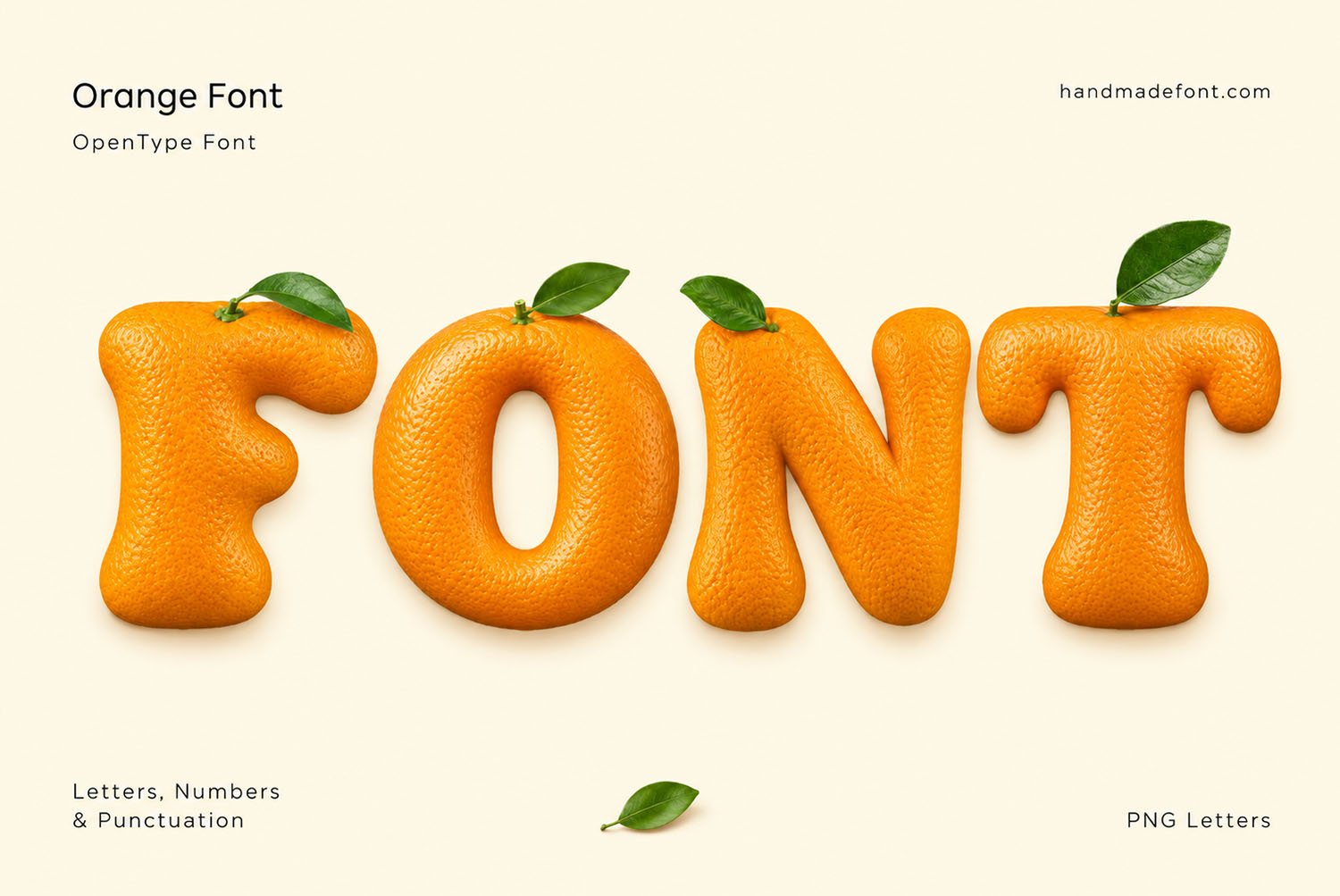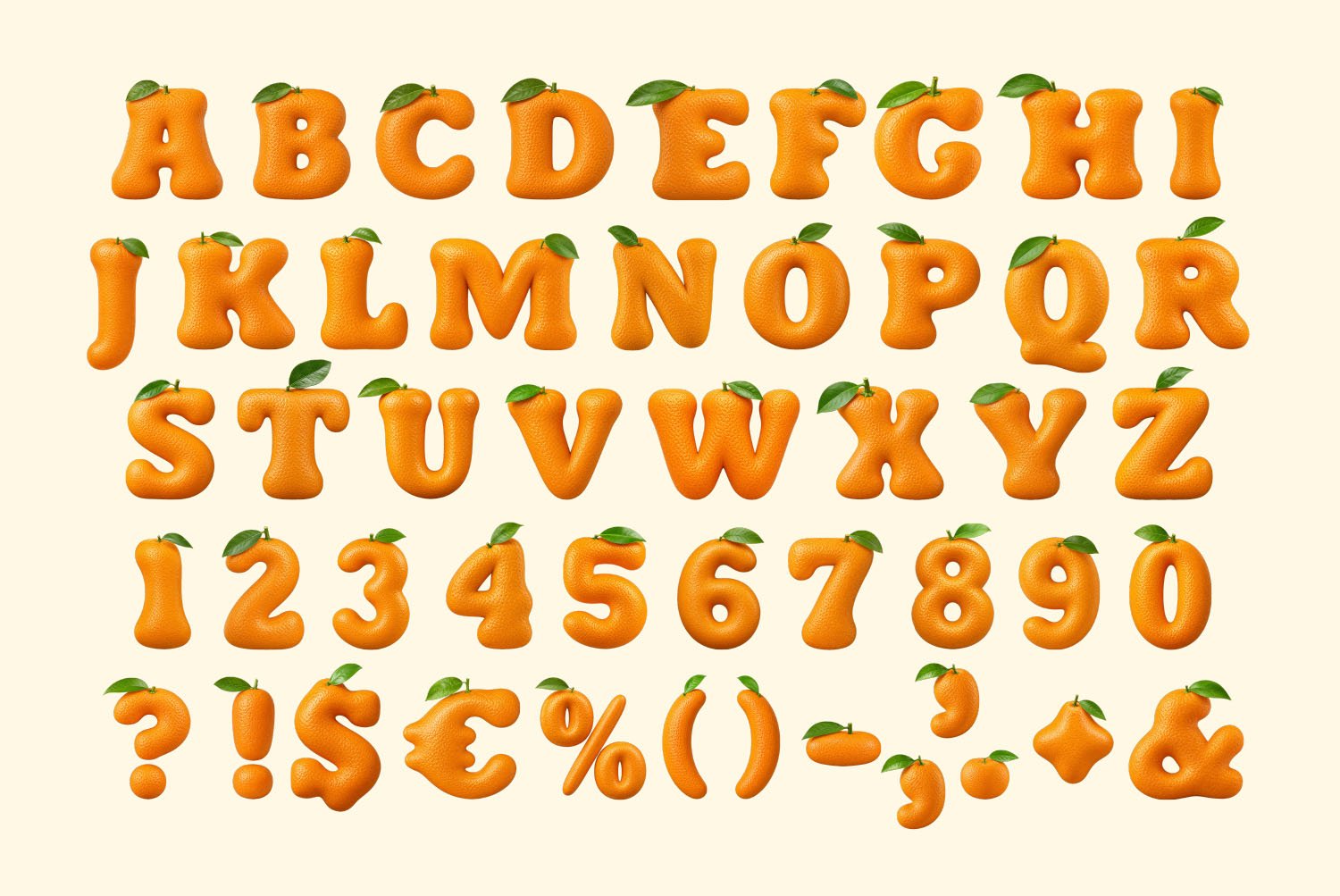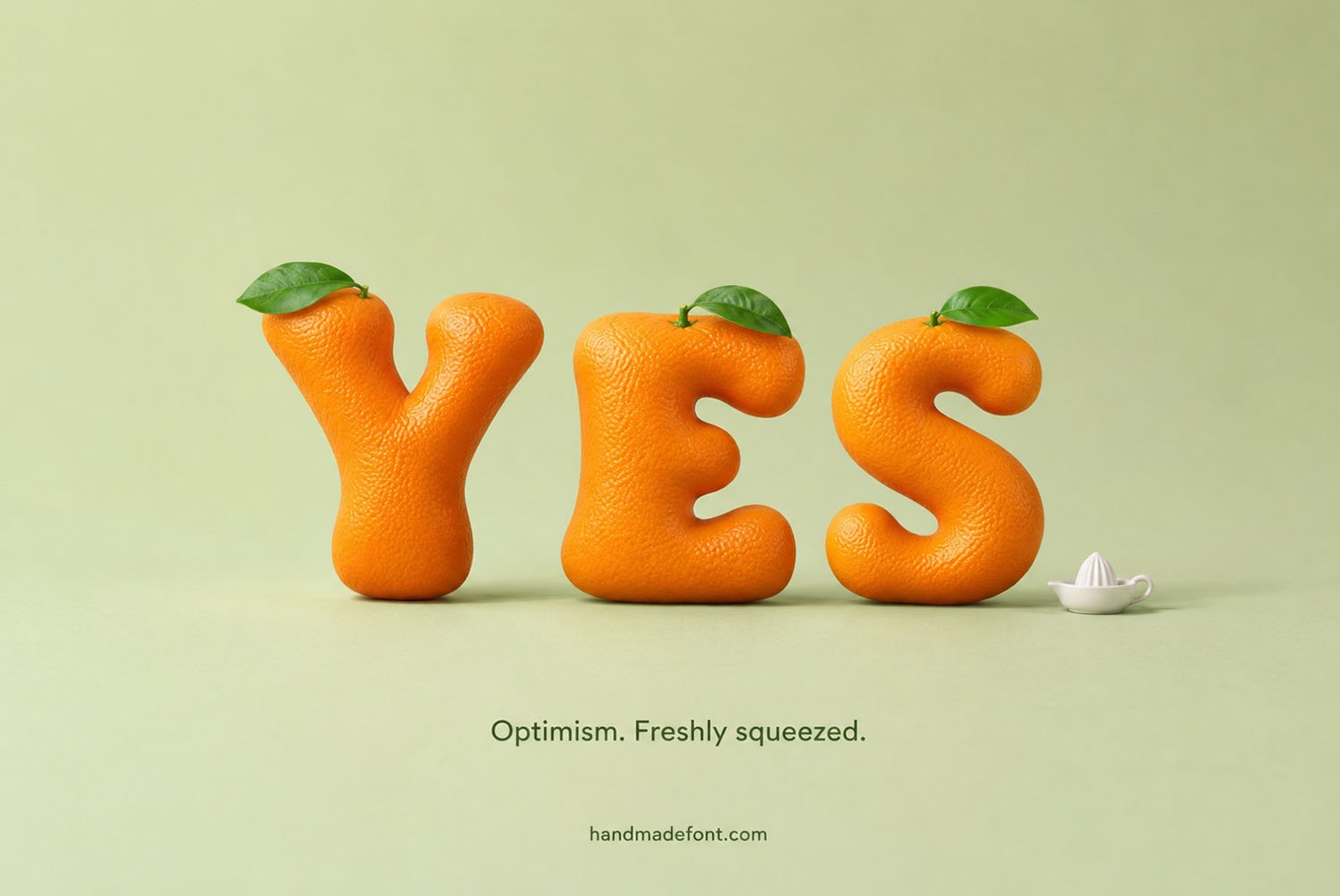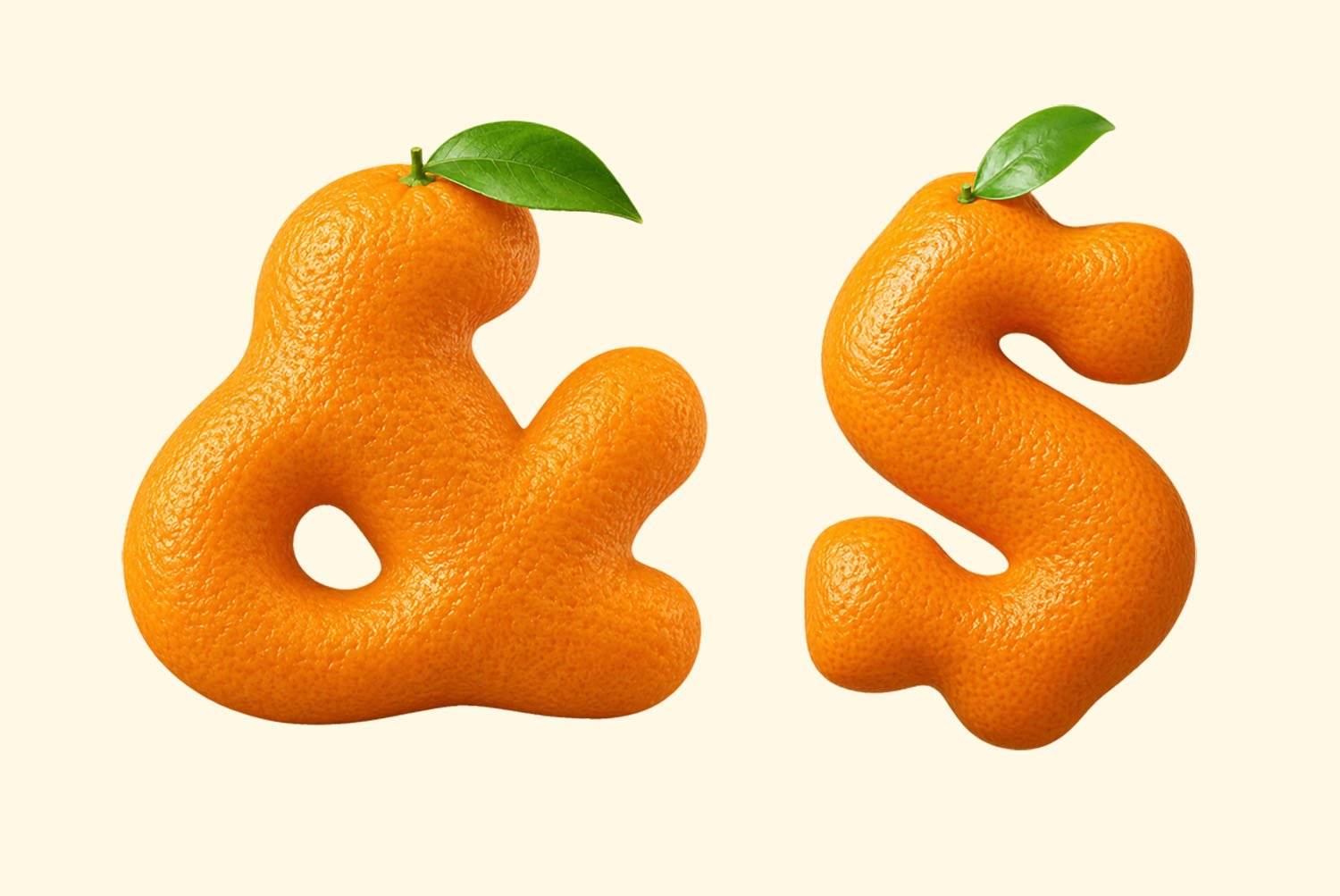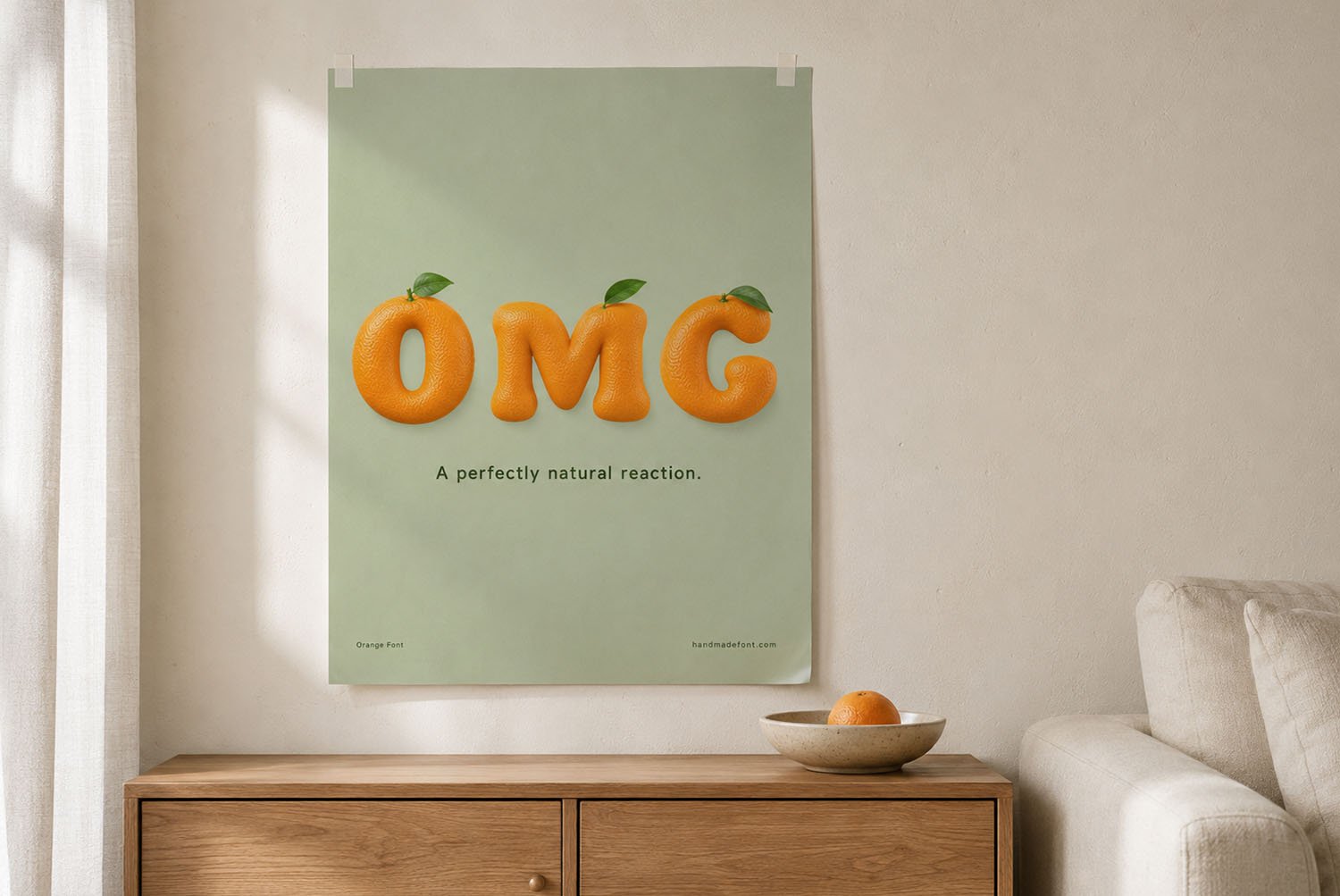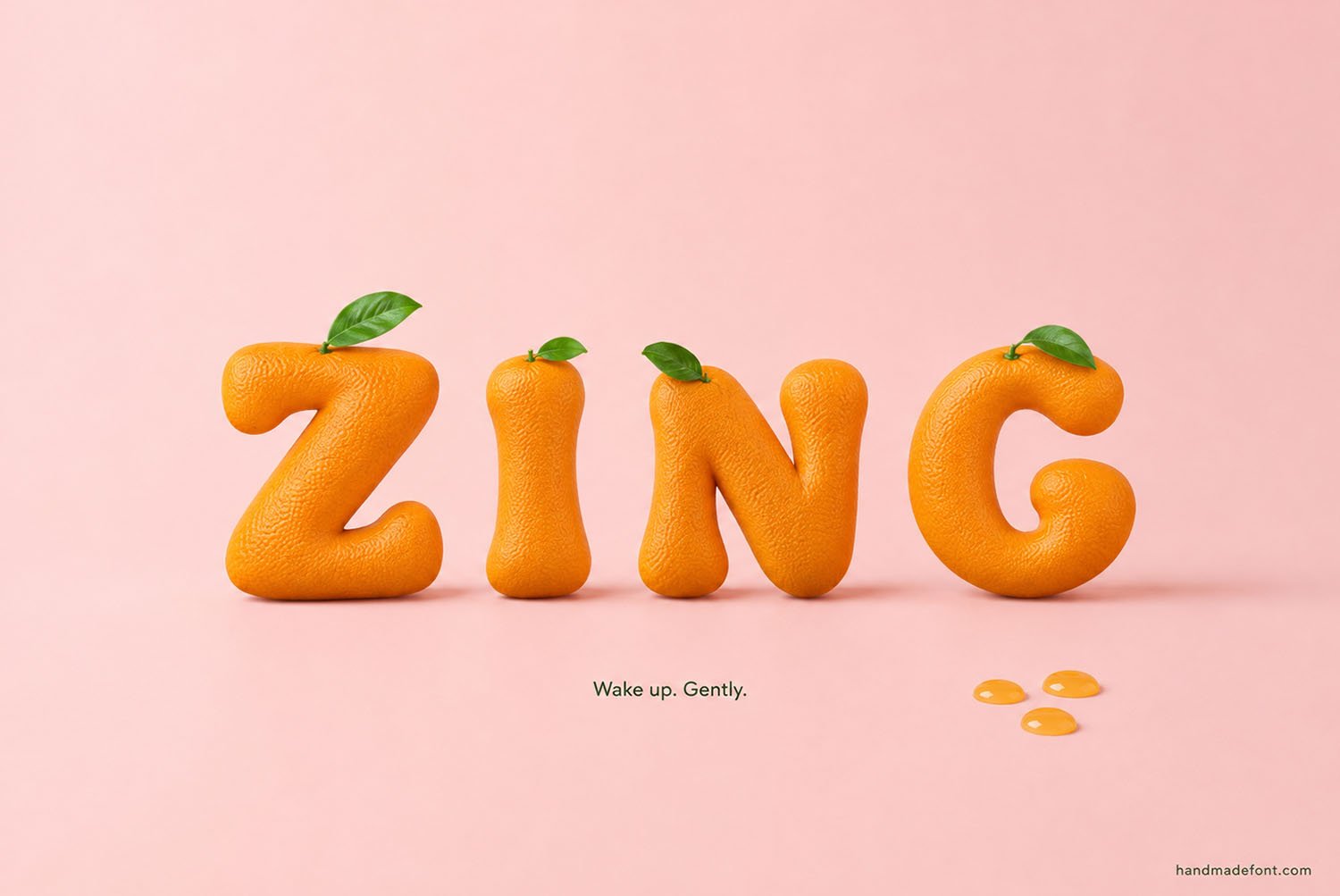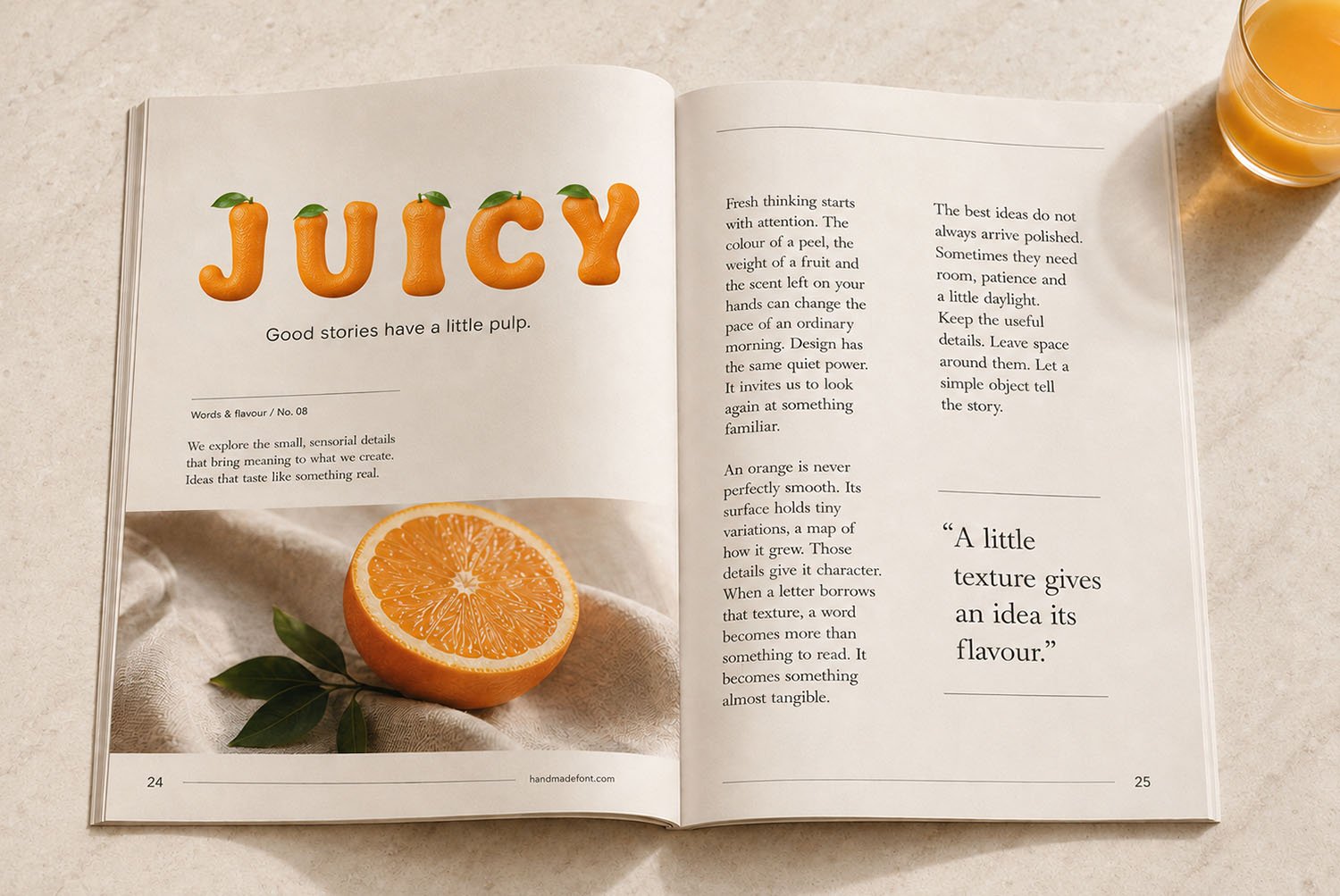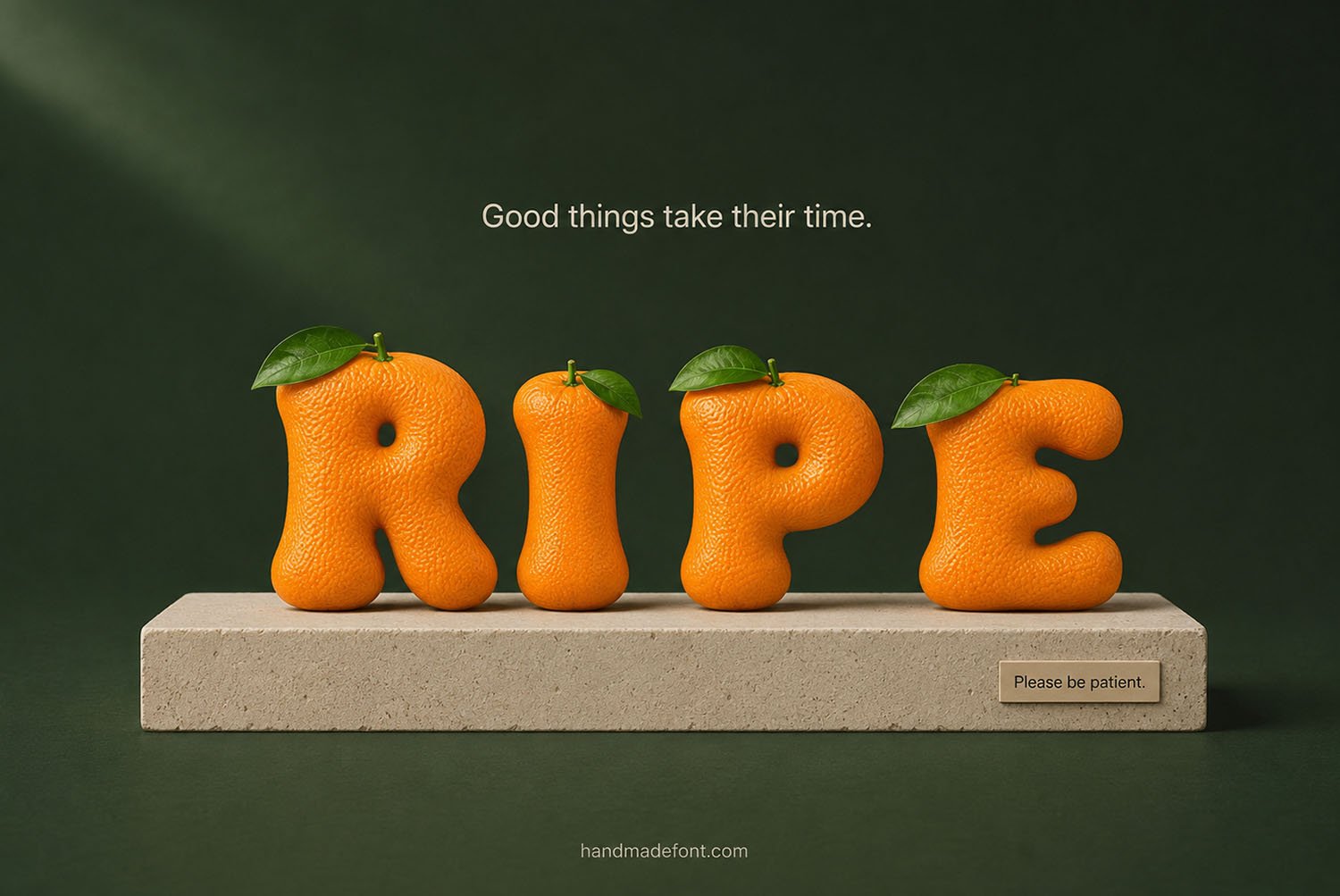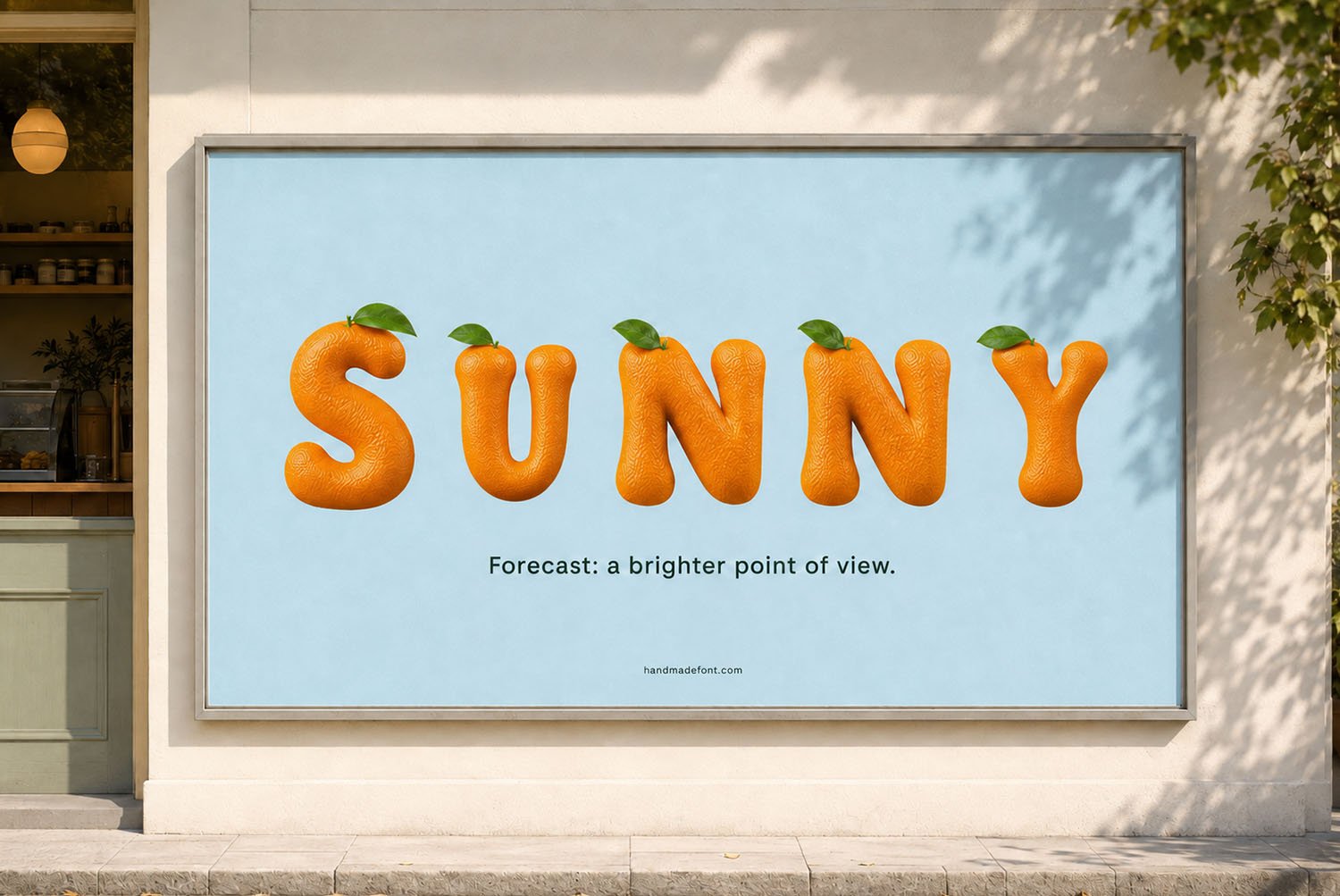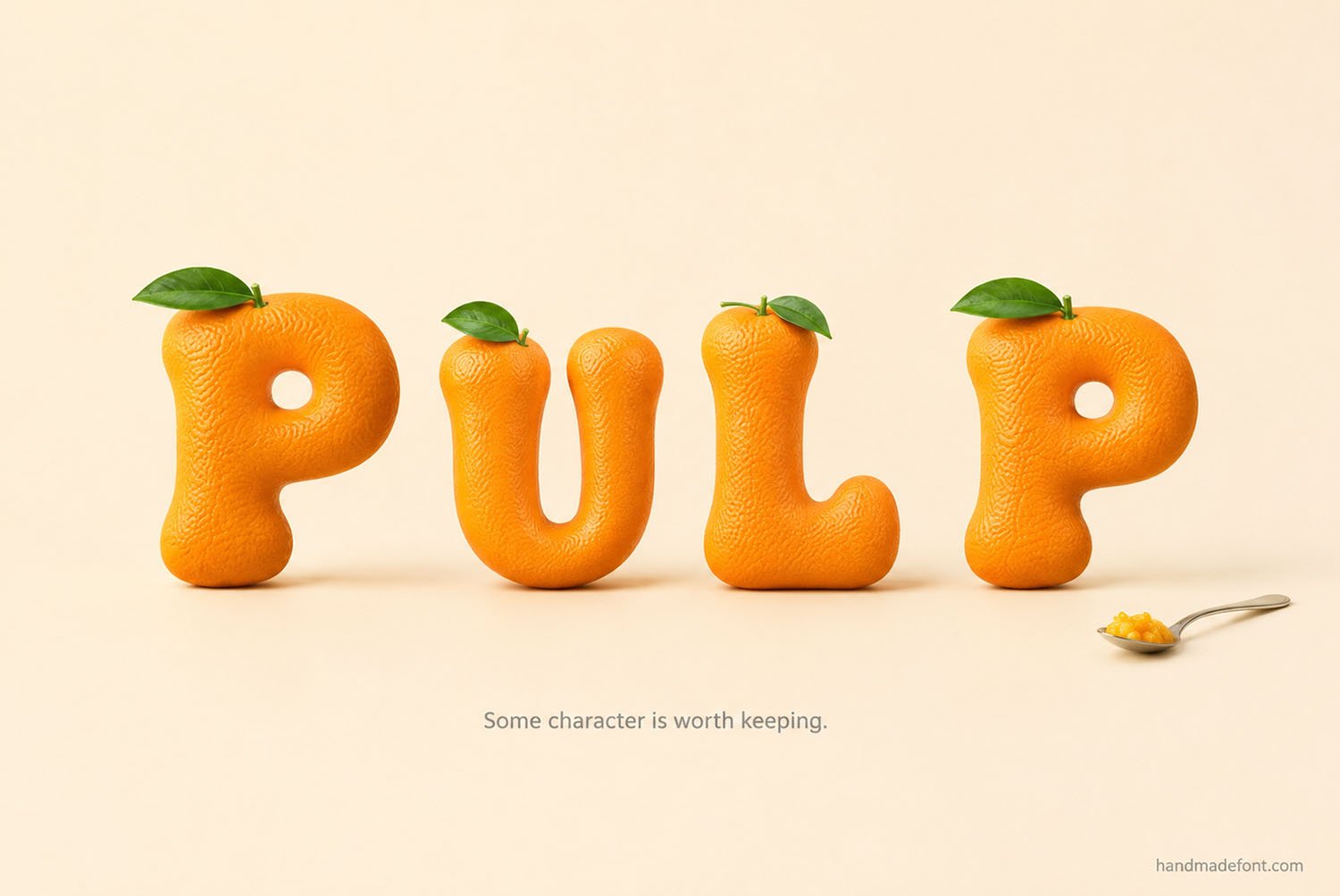
Orange Font
Orange Font is a bright, tactile display typeface inspired by the dimpled peel, sunny colour and fresh leaves of real citrus. Its soft, rounded characters bring cheerful energy to juice labels, fruit packaging, café menus, summer posters and playful branding. The set includes an OTF font for easy typing plus individual PNG letters on transparent backgrounds for flexible custom layouts. Use Orange Font to create friendly headlines, colourful social posts and packaging that feels fresh, handmade and full of zest.